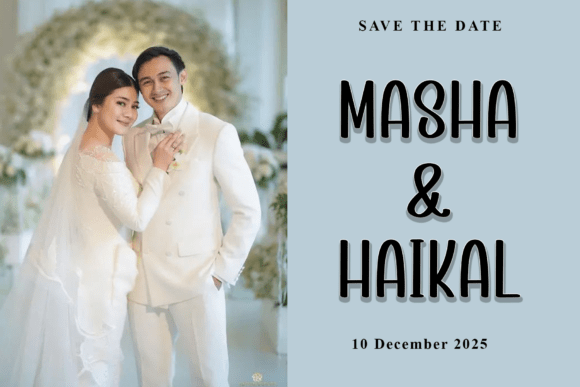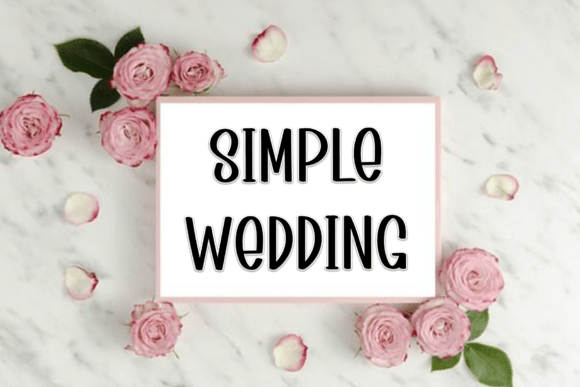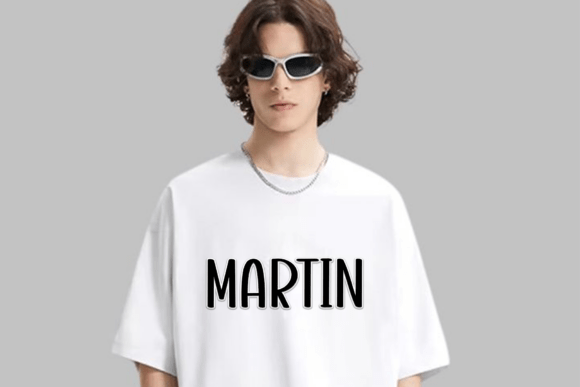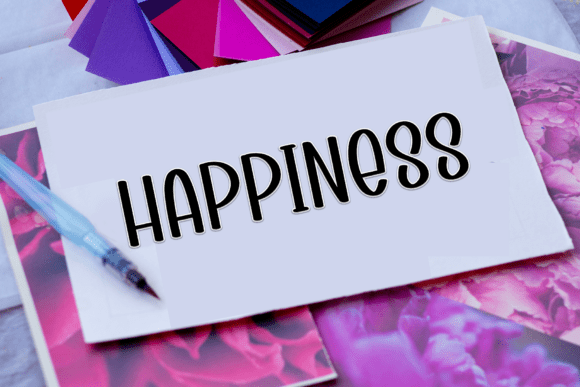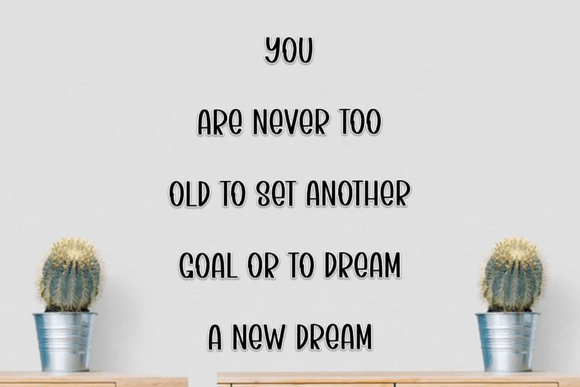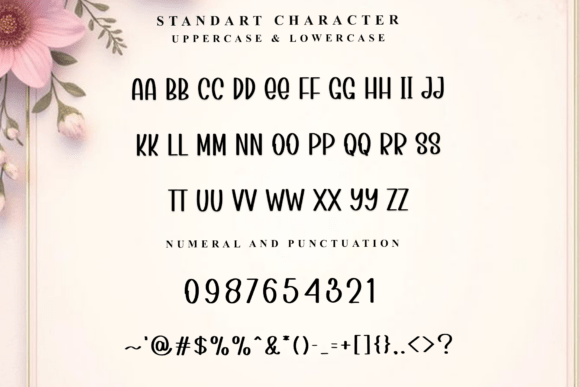
Bubble Up Your Design Game
Have you ever been stuck in a creative rut, scrolling through social media and feeling uninspired by the same old font styles? I know I have. But then, I stumbled upon the perfect remedy – a font that’s as playful as it is charming: the Bubble Gummy Font. This delightful font is more than just a pretty face; it’s a way to add a touch of warmth and friendliness to your designs.
Whether you’re creating personal projects, invitations, or social media graphics, the Bubble Gummy Font is the perfect companion. Its round, playful strokes create a relaxed and approachable feel that’s sure to captivate your audience. With its PUA Encoded glyphs, you can use this font in a variety of applications, from Adobe Photoshop to Canva.
As a designer, you know how valuable it is to have a versatile and unique font in your toolkit. The Bubble Gummy Font is a game-changer, adding a fun and creative touch to any project. So why settle for boring fonts when you can bubble up your design game with this charming font?
Bubble Gummy Font Key Features
- Font Style: A fun, playful and colorful font with a mix of bubble and gummy elements, perfect for creating eye-catching designs.
- Font Size: This font is available in a single weight, making it easy to use in various design projects without worrying about font weight inconsistencies.
- Character Set: Includes a wide range of characters, including uppercase and lowercase letters, numbers, punctuation marks, and special characters.
- Resolution: Designed to be scalable, making it suitable for use in various resolutions, from small web graphics to large print materials.
- Unique Characteristics: Features a unique blend of bubble and gummy elements, creating a fun and playful atmosphere in any design project.
Bubble Gummy Font Review
As a designer, I’m always on the lookout for unique and playful fonts to add some personality to my projects. The Bubble Gummy Font is definitely a fun and eye-catching choice, and here’s my honest review:
- Colorful and whimsical design that’s perfect for children’s content or playful branding.
- The font is highly customizable, with a range of options for colors, sizes, and spacing.
- The Bubble Gummy Font is a great choice for creating engaging headlines and titles that grab attention.
- The font may be too childish for more serious or professional projects, which could limit its versatility.
- The design can be overwhelming if used too much or in large quantities, so it’s best to use it sparingly.
- The font may not be suitable for smaller text sizes, as the details can get lost.
Overall, I think the Bubble Gummy Font is a great choice for projects that need a playful and fun vibe. While it may have some limitations, its unique design and customization options make it a great addition to any designer’s toolkit.
Use Bubble Gummy Font for playful and whimsical designs, such as:
1. Children’s party invitations.
2. Food and drink branding.
3. Social media graphics.